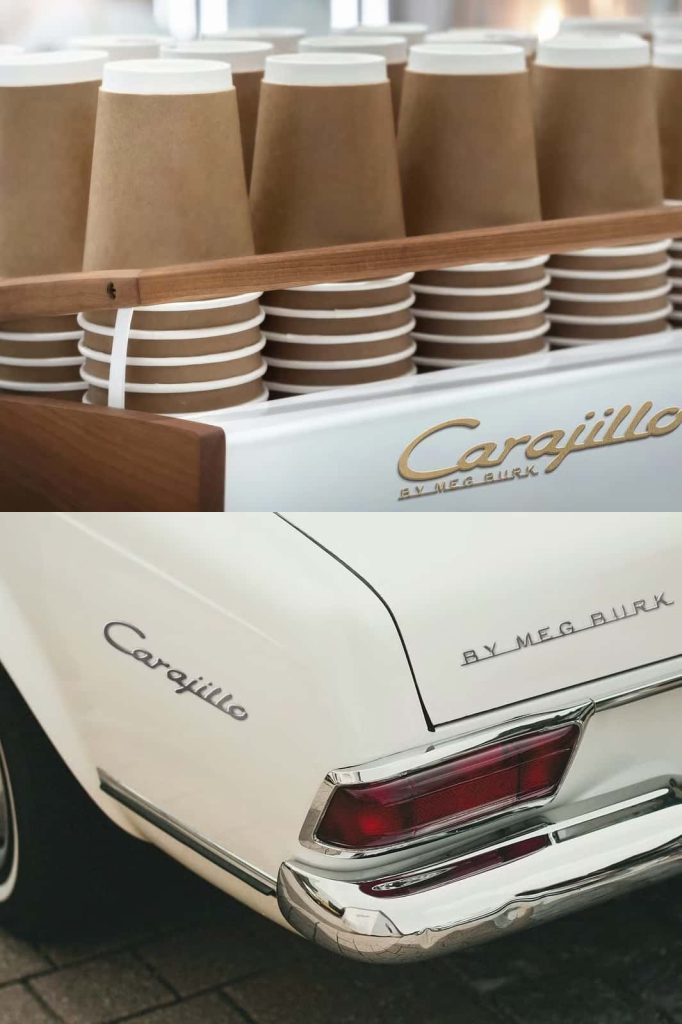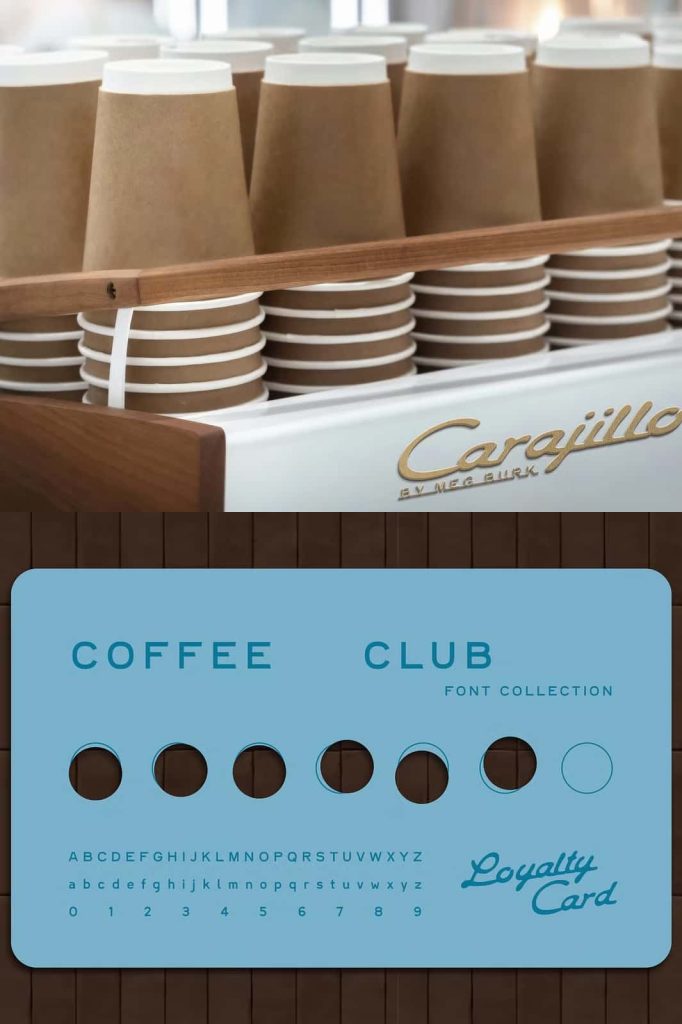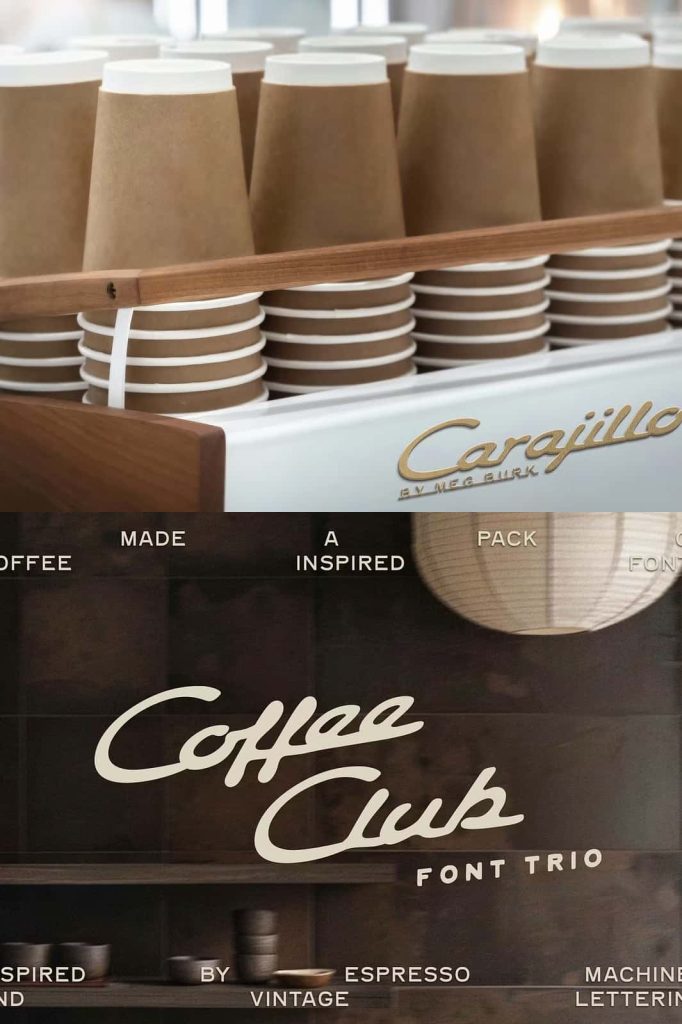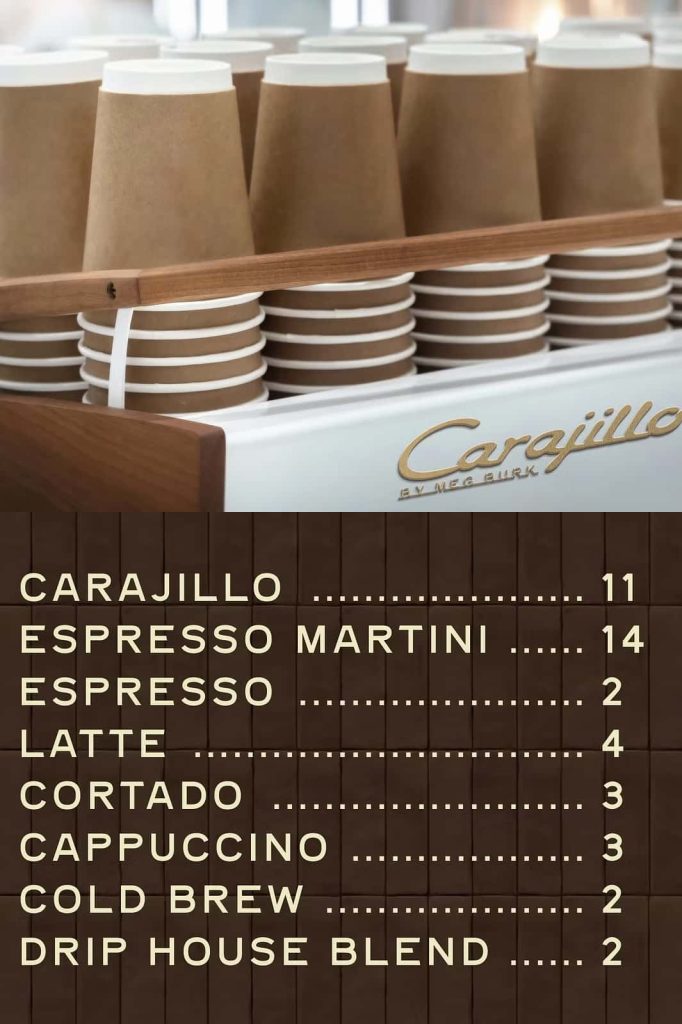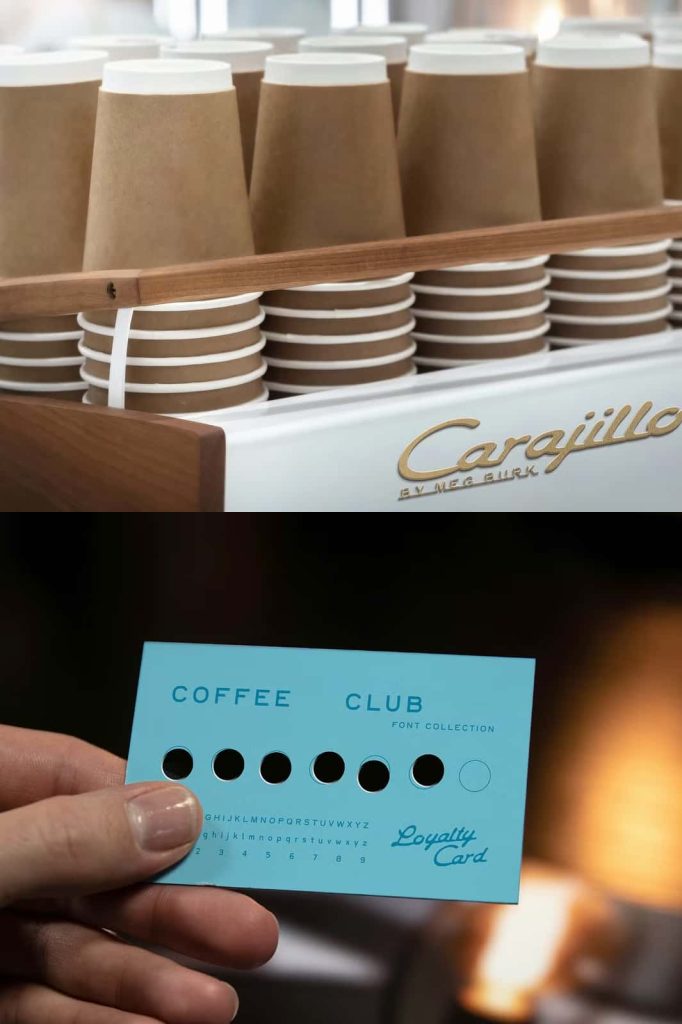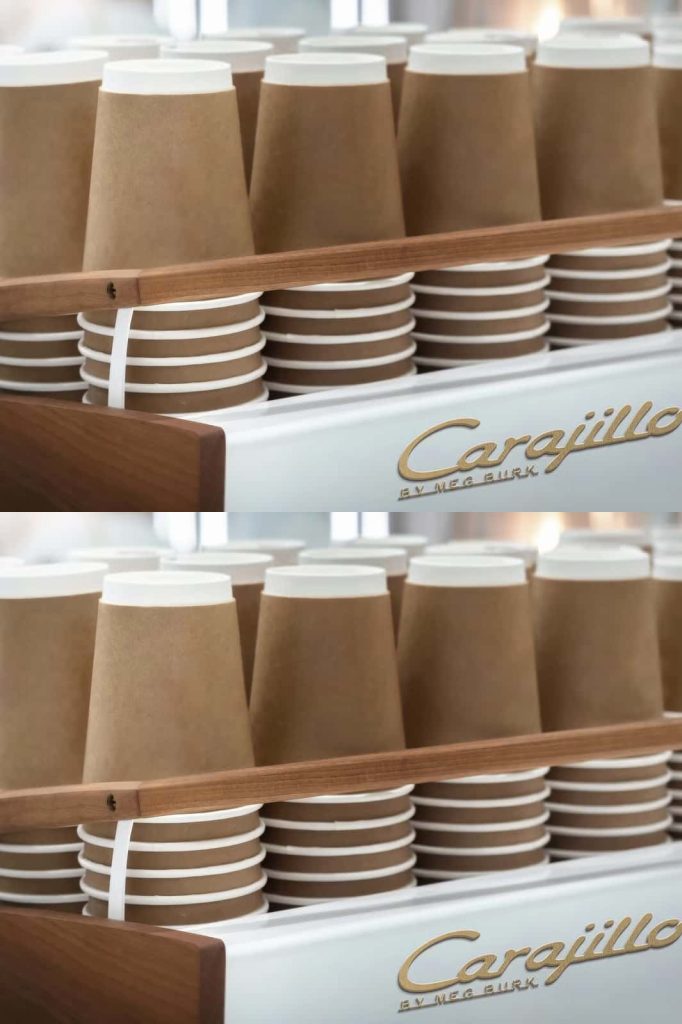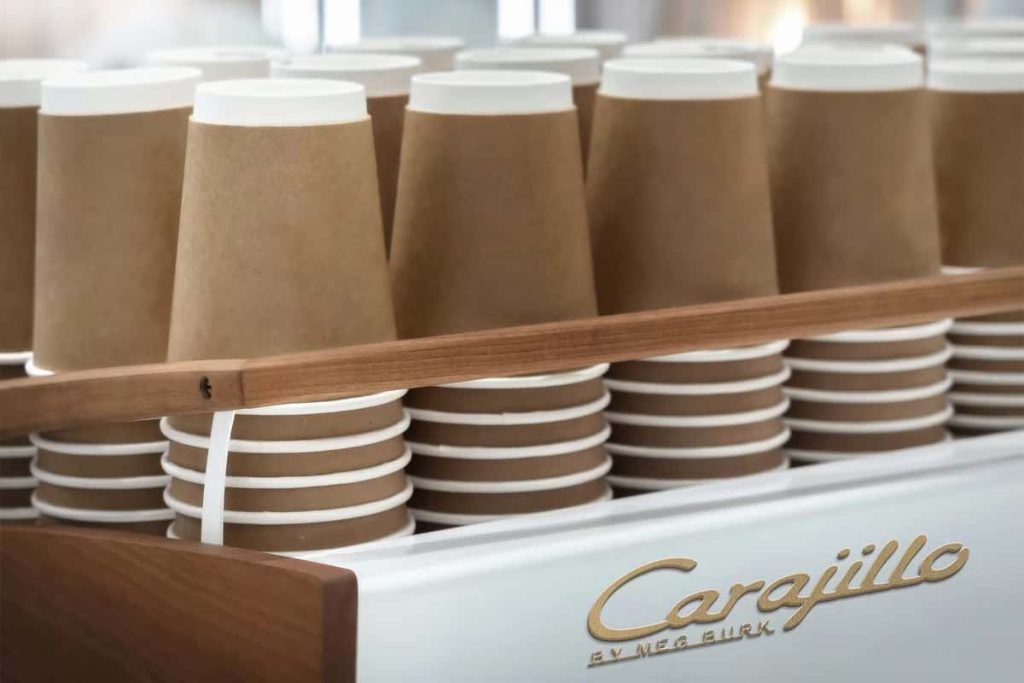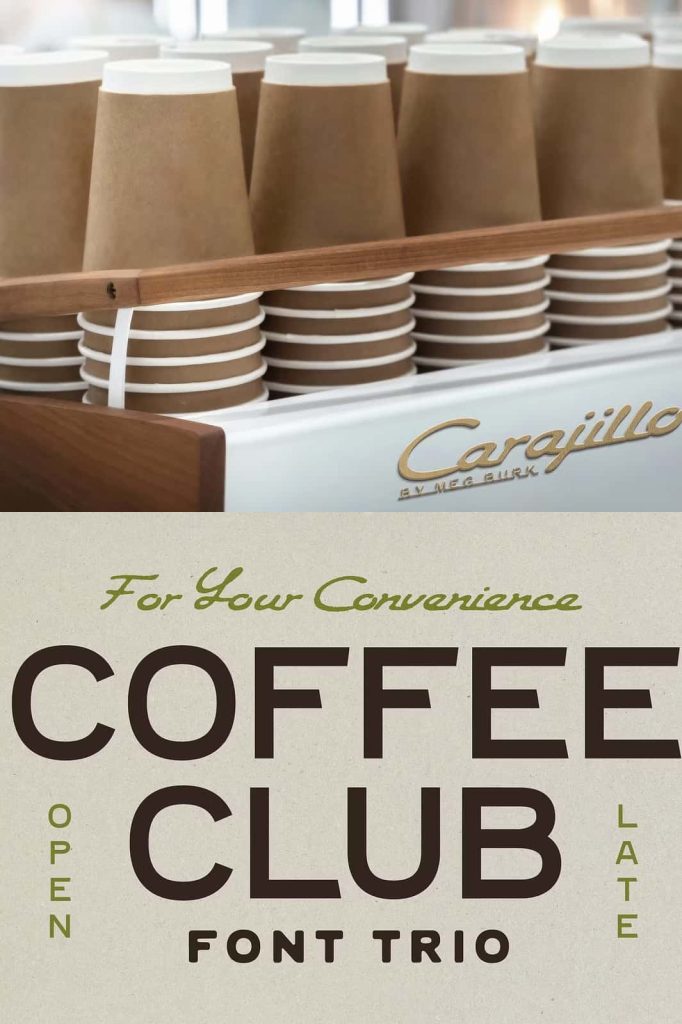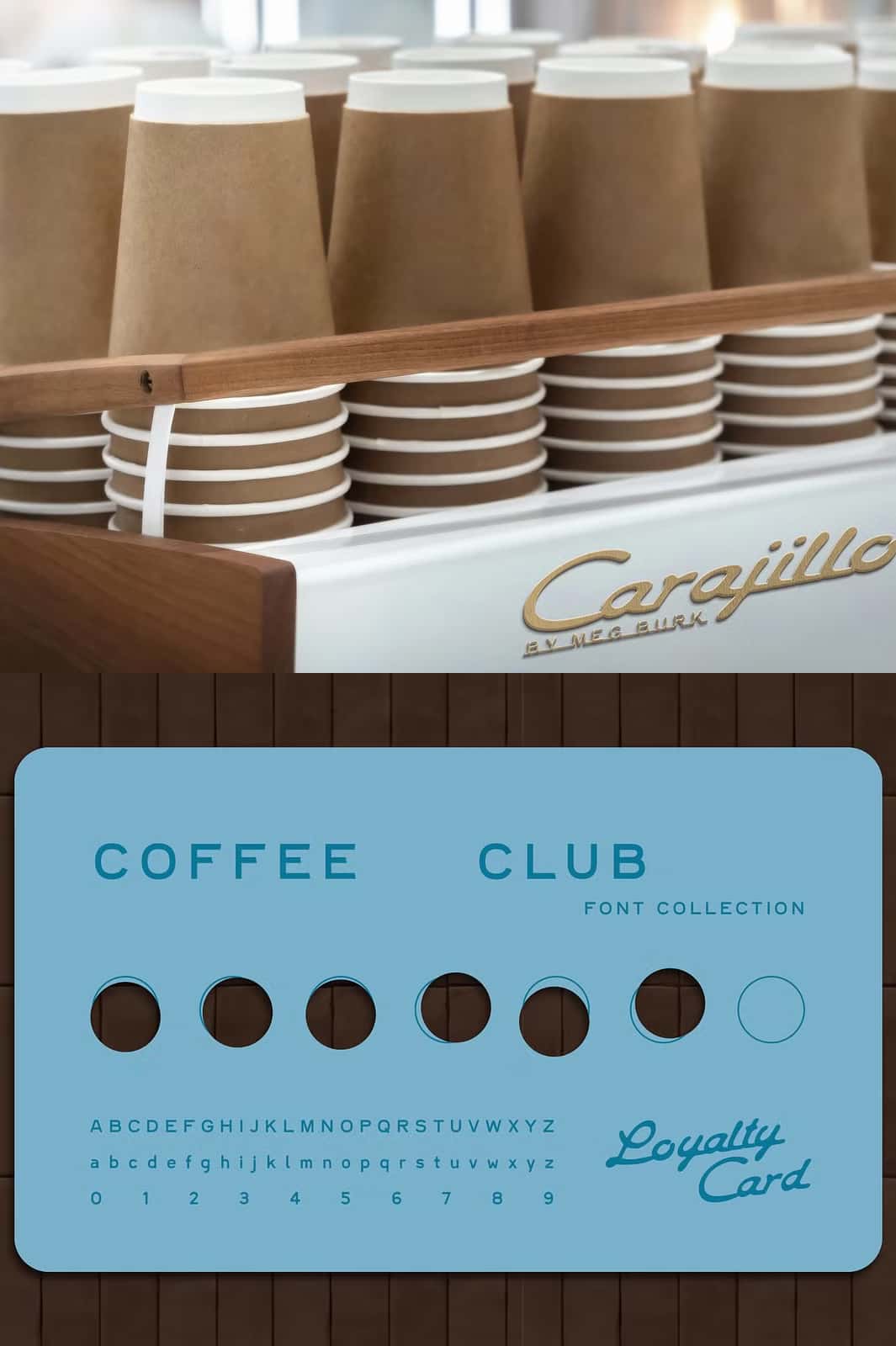
Carajillo Font Collection: Vintage Logo Fonts Inspired by Espresso Machine Nameplates
Carajillo Font Collection is a distinctive set of fonts inspired by the timeless beauty of metal nameplates found on classic espresso machines. These small yet powerful details, often overlooked, carry decades of craftsmanship, history, and character. Carajillo captures that spirit and transforms it into a usable, expressive font collection designed for modern creatives who appreciate vintage aesthetics.
This collection celebrates the visual identity of cafés and the iconic machines that define them. From bold emblems to elegant lettering, Carajillo draws directly from the world of espresso culture, where design and function meet in beautifully crafted forms.
Inspired by Espresso Machine Emblems
The inspiration behind Carajillo comes from close observation. If you enjoy visiting new cafés, you may find yourself drawn to the espresso machines behind the counter. Each one tells a story through its metal nameplates, engraved logos, and raised lettering. These emblems differ in style, era, and attitude, yet they all share a sense of pride and craftsmanship.
Carajillo was born from that moment of discovery. A single emblem on a La Marzocco espresso machine revealed a lettering style that felt bold, refined, and deeply vintage. That moment sparked the idea to preserve and reinterpret those forms into a versatile font collection.
Classic Craftsmanship Translated into Type
Metal nameplates are designed to last. Their letterforms feel solid, confident, and intentional. Carajillo translates this durability into digital typography by focusing on strong shapes, balanced proportions, and carefully considered details.
The result is a font collection that feels grounded and authentic, carrying the visual weight of engraved metal while remaining flexible enough for modern design use.
A Vintage Logo Font Collection with Character
Carajillo Font Collection is built for logo design and branding. Each font in the pack reflects the aesthetics of vintage logos found on espresso machines, grinders, and café equipment. These letterforms feel authoritative and timeless, making them ideal for brands that value heritage and quality.
The fonts work especially well in projects that aim to communicate craftsmanship, tradition, and attention to detail. They offer designers a way to reference the past without sacrificing clarity or usability.
Designed for Visual Impact
The fonts in the Carajillo collection feature bold construction and distinctive shapes that hold their presence in any layout. They perform beautifully in logos, signage, packaging, and promotional materials. The lettering commands attention while maintaining a refined, classic tone.
This balance allows designers to create strong brand identities that feel established and trustworthy.
Perfect for Café, Food, and Lifestyle Branding
Carajillo Font Collection fits naturally into café branding, coffee packaging, and food-related design projects. The connection to espresso machine emblems gives the fonts an authentic link to coffee culture. This authenticity resonates with audiences who appreciate quality and tradition.
Beyond cafés, the fonts also work well for lifestyle brands, boutique products, and artisanal businesses. Any project that benefits from a vintage logo aesthetic can find a home in this collection.
Versatile Across Print and Digital Media
Although inspired by metal nameplates, Carajillo is designed for modern workflows. The fonts scale smoothly across different sizes and mediums. They remain legible on packaging, menus, websites, and social media graphics.
This versatility makes the collection practical for designers who need consistent branding across multiple platforms.
A Tribute to Vintage Design Details
Carajillo Font Collection serves as a tribute to the small design details that often go unnoticed. The emblems on espresso machines carry history, craftsmanship, and visual storytelling. By translating those forms into typography, Carajillo keeps that design language alive.
The collection encourages designers to slow down, observe, and draw inspiration from everyday objects. It proves that great ideas can come from the details hidden in plain sight.
A Font Collection Built on Passion and Observation
Carajillo began with a moment of appreciation for vintage logos and espresso culture. That passion flows through every font in the collection. The careful construction and thoughtful inspiration ensure that the fonts feel purposeful and expressive.
For designers seeking a vintage logo font collection with authenticity, character, and strong visual identity, Carajillo offers a distinctive typographic solution rooted in craftsmanship and timeless design.